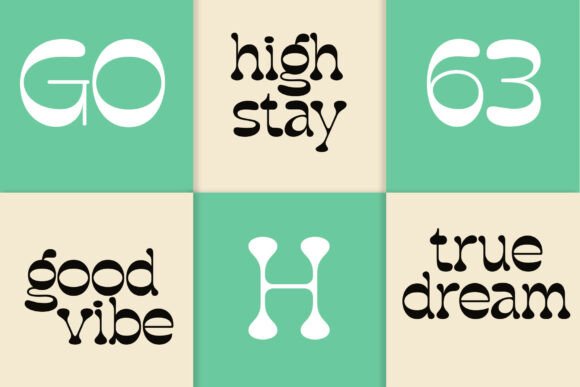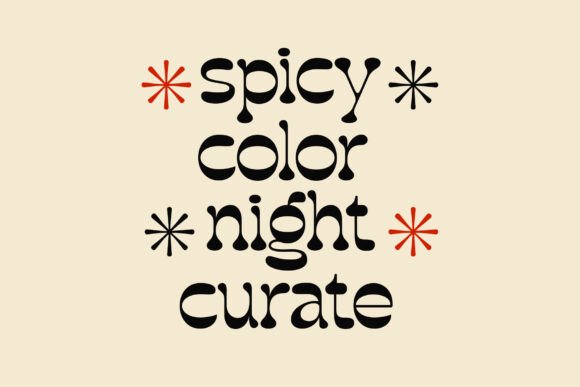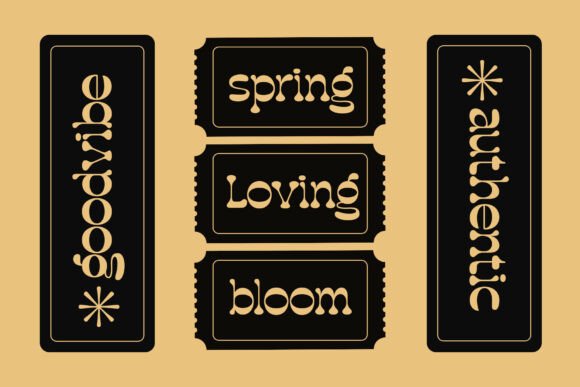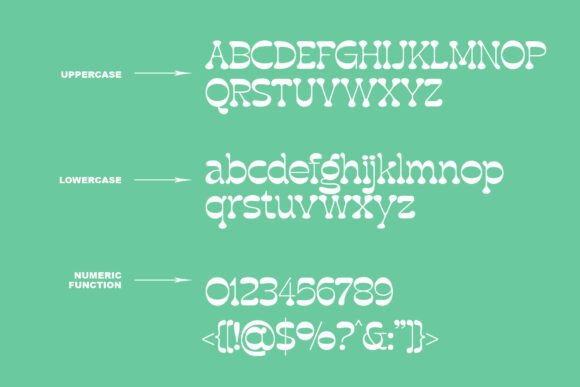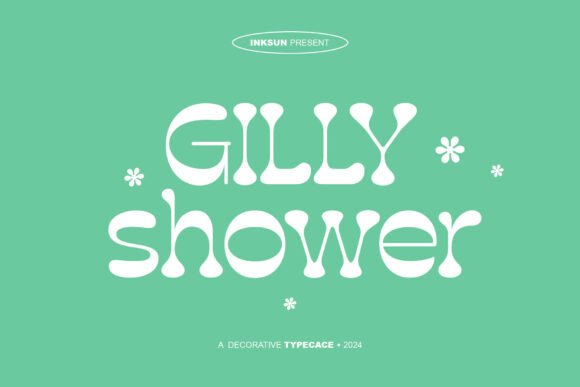
Introducing Gilly Shower Font: The Ultimate Display Typeface for Creative Projects
Are you looking for a font that can add a touch of playfulness and whimsy to your designs? Look no further than the Gilly Shower font! This vibrant and high-impact decorative display font is perfect for a wide range of creative projects, from books and magazines to logos, branding, and advertising.
A Unique Blend of Retro-Modern Aesthetic and Whimsical Charm
Gilly Shower font masterfully blends a playful, retro-modern aesthetic with a touch of whimsical charm. Its thick, chunky letterforms and soft, rounded terminals give it a friendly and energetic personality that’s sure to capture the attention of your audience. The design features unique, fluid contours and organic shapes that give it a “bubbly” and approachable character.
Key Features of Gilly Shower Font
- Uppercase and Lowercase Letters: Gilly Shower font includes both uppercase and lowercase letters, making it perfect for a wide range of design applications.
- Numerals and Functional Characters: The font also includes numerals and functional characters, ensuring that you have everything you need to create professional-looking designs.
- Multilingual Support: Gilly Shower font supports multiple languages, making it a great choice for designers who work with international clients or want to create designs that appeal to a global audience.
- Stylistic Ligatures: The font features stylistic ligatures, which allow you to create beautiful, flowing text that’s sure to impress.
Gilly Shower font is perfect for a wide range of creative projects, including:
- Books and Magazines: Add a touch of playfulness and whimsy to your book or magazine covers with Gilly Shower font.
- Logos and Branding: Create a memorable and eye-catching logo with Gilly Shower font.
- Photography: Use Gilly Shower font to add a touch of personality to your photo captions and titles.
- Quotes and Blog Headers: Add a touch of whimsy and charm to your quotes and blog headers with Gilly Shower font.
- Posters and Advertisements: Create eye-catching posters and advertisements with Gilly Shower font.
Why Choose Gilly Shower Font?
So why choose Gilly Shower font for your next design project? Here are just a few reasons:
- Unique and Eye-Catching: Gilly Shower font is a unique and eye-catching typeface that’s sure to capture the attention of your audience.
- Playful and Whimsical: The font’s playful and whimsical design makes it perfect for projects that require a touch of personality and charm.
- Versatile: Gilly Shower font is versatile and can be used for a wide range of design applications.
- High-Quality: The font is designed to high standards, ensuring that it looks great in any design.
In conclusion, Gilly Shower font is a vibrant and high-impact decorative display font that’s perfect for designers and crafters who want to add a touch of playfulness and whimsy to their designs. With its unique blend of retro-modern aesthetic and whimsical charm, this font is sure to capture the attention of your audience and leave a lasting impression.